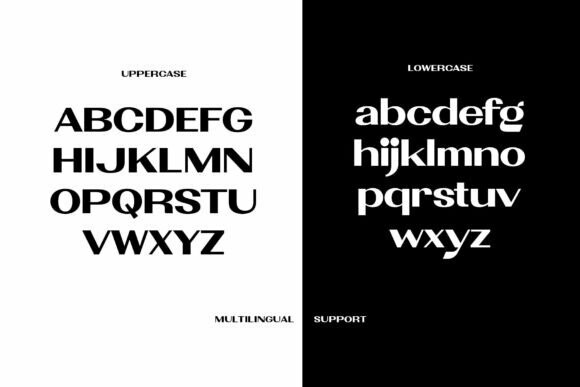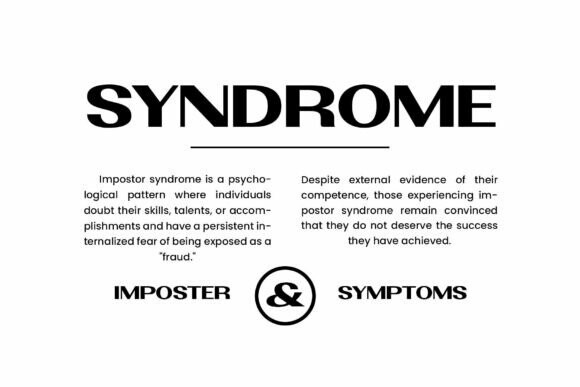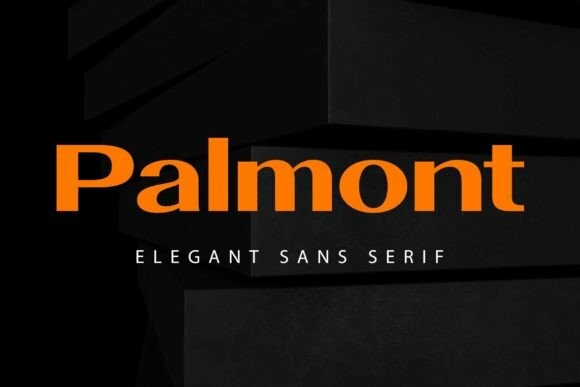
Palmont Font
Palmont Font is a modern vintage sans serif font designed with wide width, geometric shapes, and a futuristic feel, making it versatile for any design project. Its bold weight gives it a strong yet elegant appearance, making it perfect for display purposes in large sizes. You can combine this font with other typefaces to create a more playful typographic design. Palmont is ideal for branding, logos, logotypes, editorials, magazines, posters, and fashion.